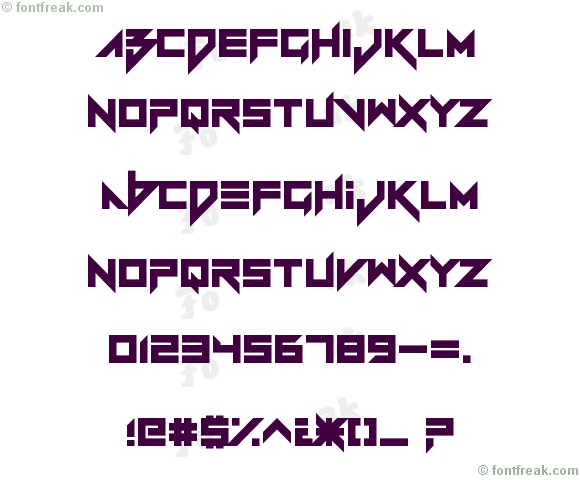
Vermin Vibes Redux Regular
About Vermin Vibes Redux Regular
Vermin Vibes Redux Regular, designed by Andrew McCluskey in 2012, is a striking display font that embodies a unique blend of urban flair and edgy aesthetics. Classified as a decorative font, it showcases bold geometric shapes and sharp angles that create a sense of movement and dynamism. The stroke weight is consistently thick, lending a strong presence to any text it graces, while the high contrast in its letterforms enhances its visual impact. The spacing is tightly packed, giving the font an efficient and compact look that commands attention.
This font is particularly well-suited for a variety of creative projects. Its bold and unconventional style makes it an excellent choice for movie posters, where it can evoke a sense of drama and excitement. Additionally, Vermin Vibes Redux Regular can elevate restaurant menus, adding a modern twist that appeals to a youthful clientele. It’s also a great option for graphic designers looking to craft eye-catching logos or branding materials that stand out in a crowded marketplace. Content creators will find this font useful for social media graphics, where its distinctive look can capture the viewer's interest instantly.